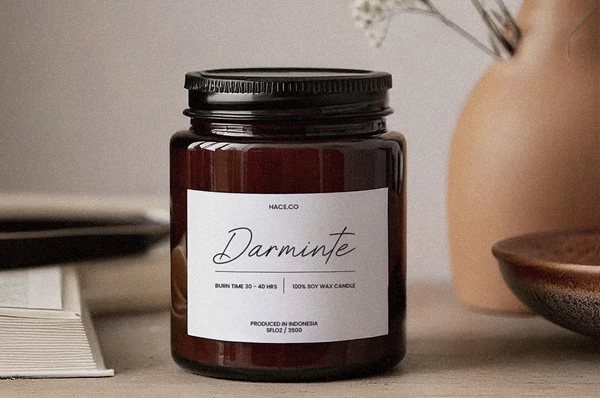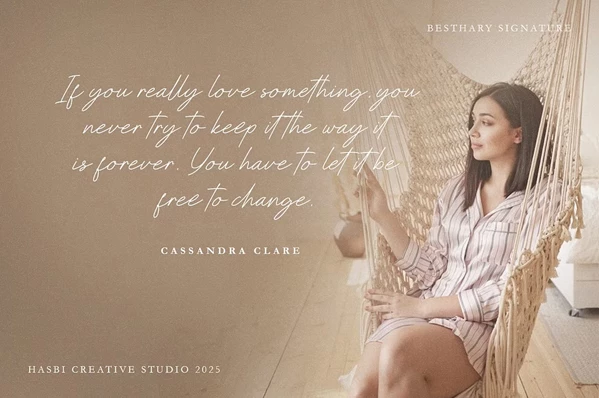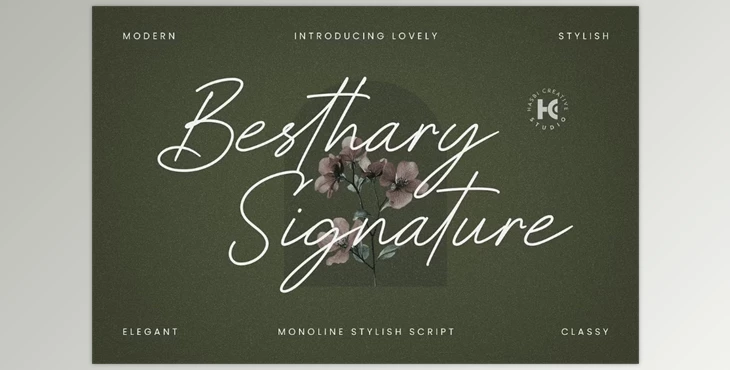
Besthary - Signature Font:
Crafted elegantly, Besthary Signature is the best font that brings the aesthetics of handwritten calligraphy to life. This font is meant to add a personal and elegant feel to your digital works best, starting from formal invitations to brand identity pieces. Besthary Signature provides a polished solution to various sophisticated creative needs.
- Best for wedding invitations, branding, social media posts, marketing collaterals, and product packaging.
- It possesses an authentic run–of–the–mill handwritten design that adds to the aesthetic of every single design it is a part of or enhances.